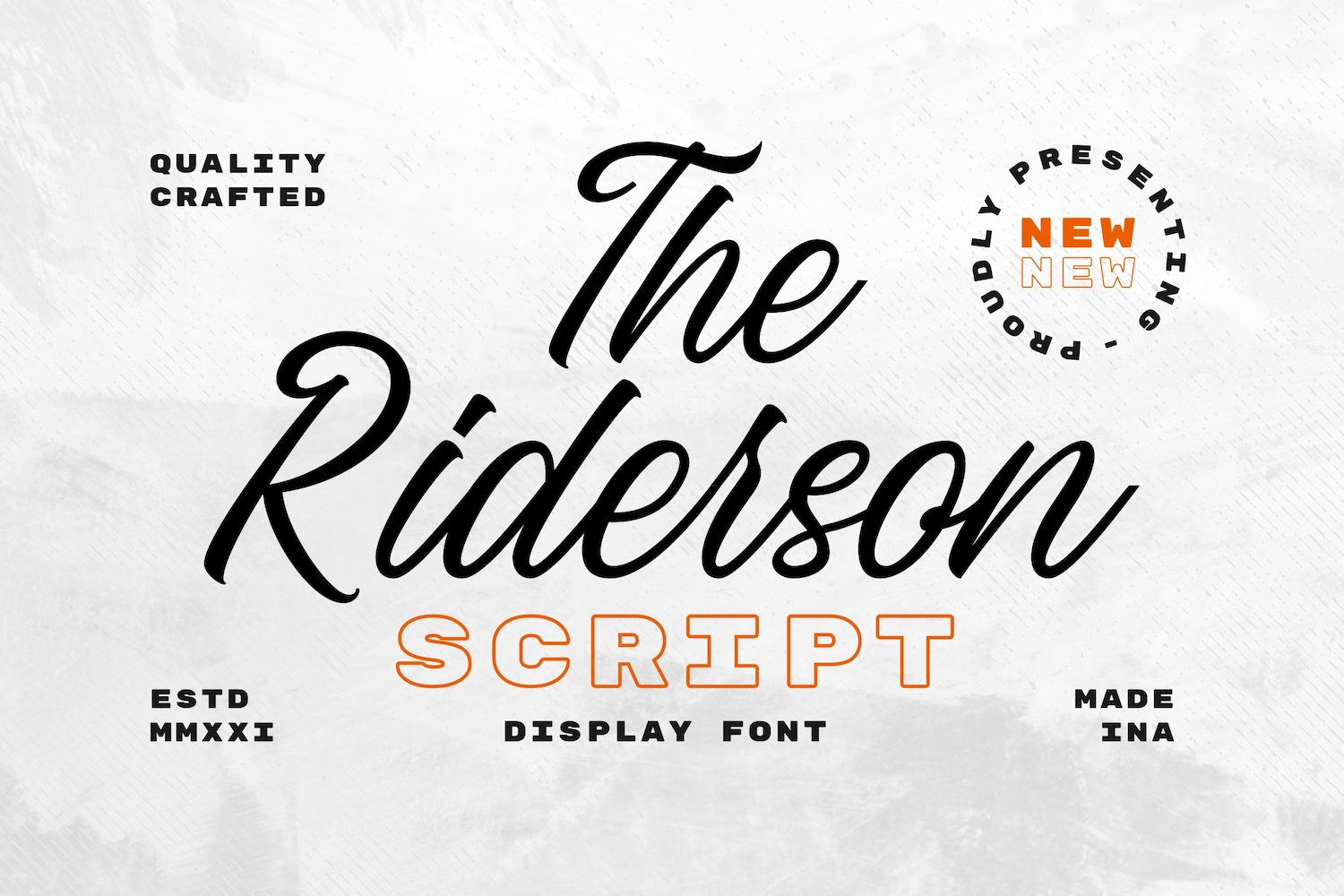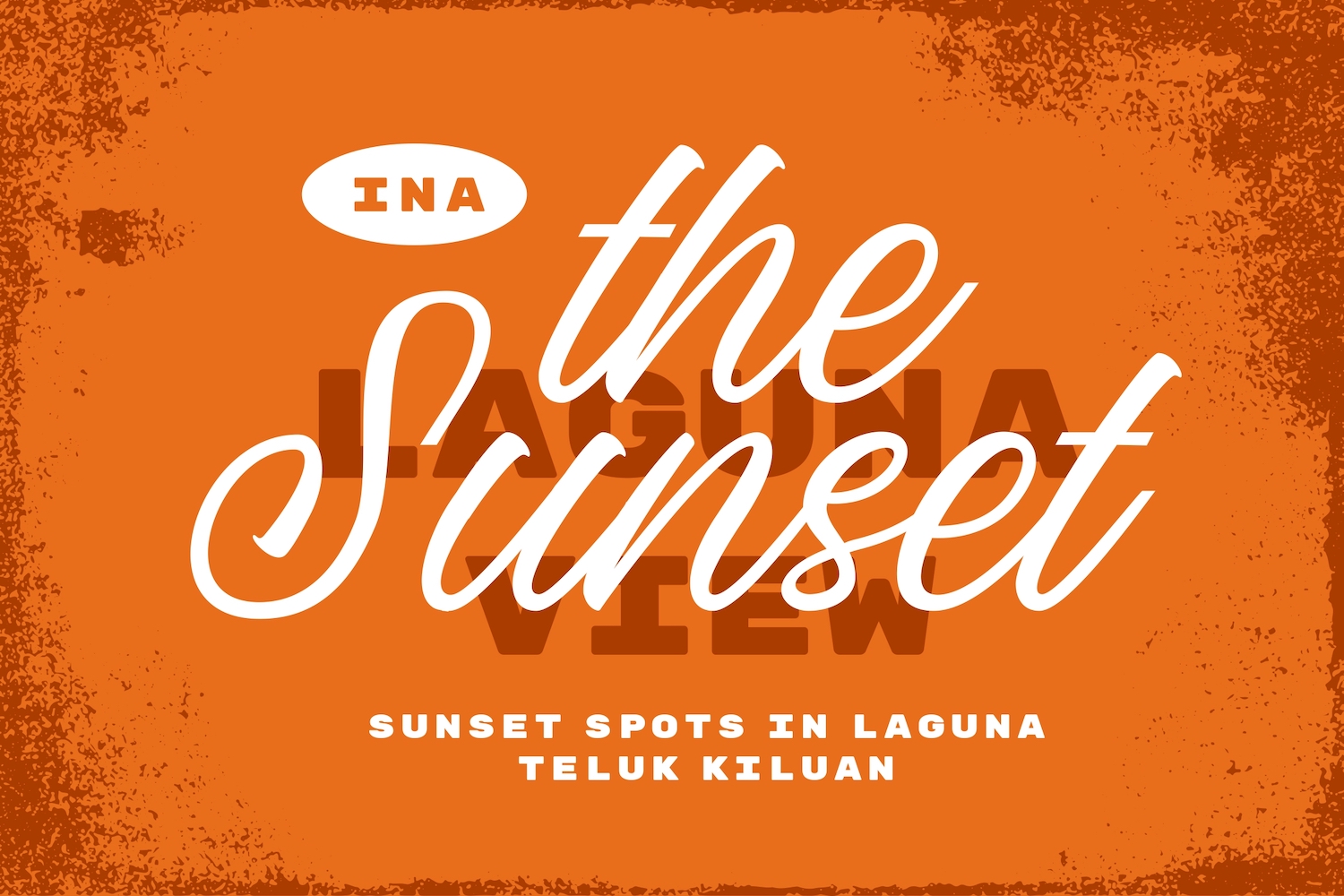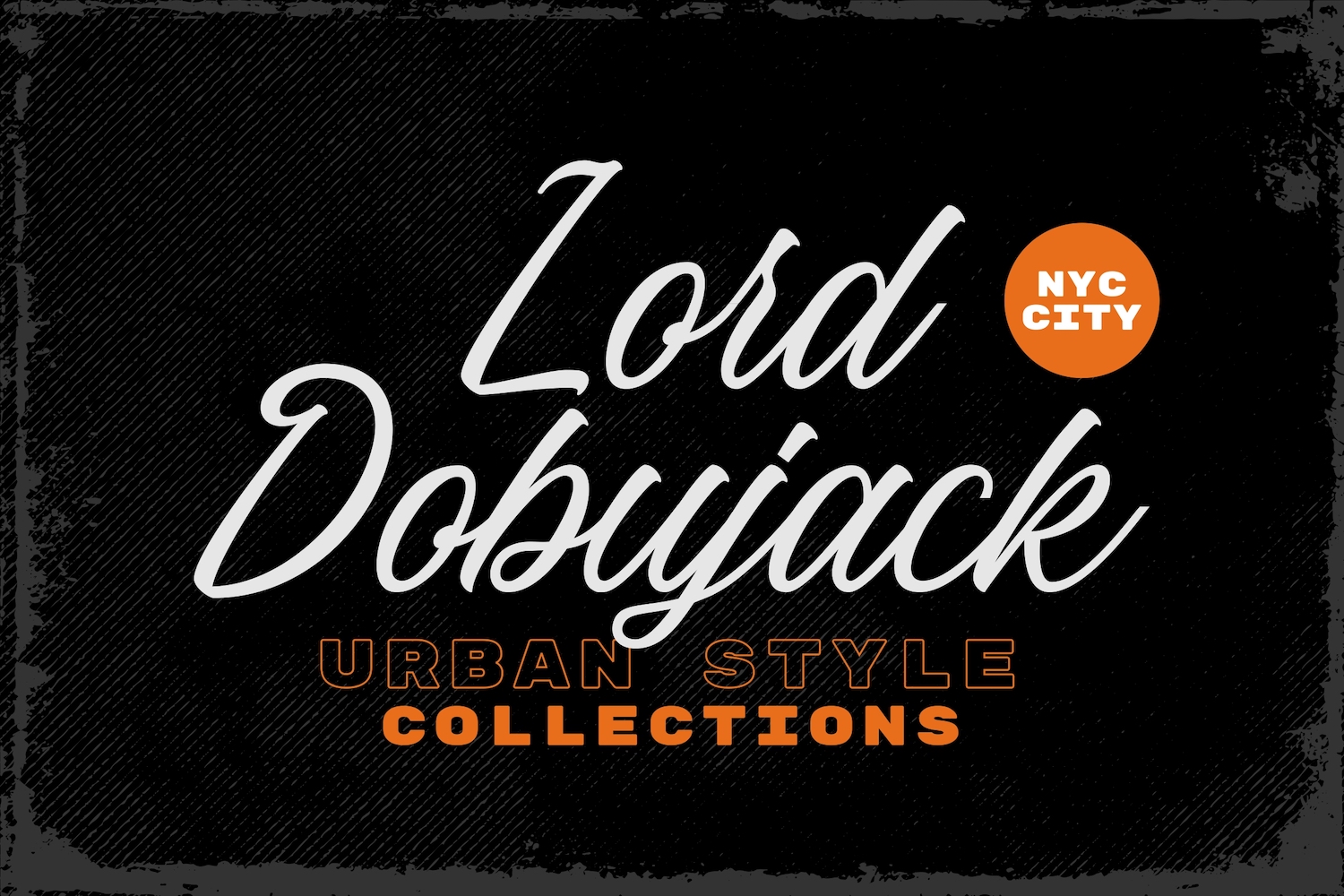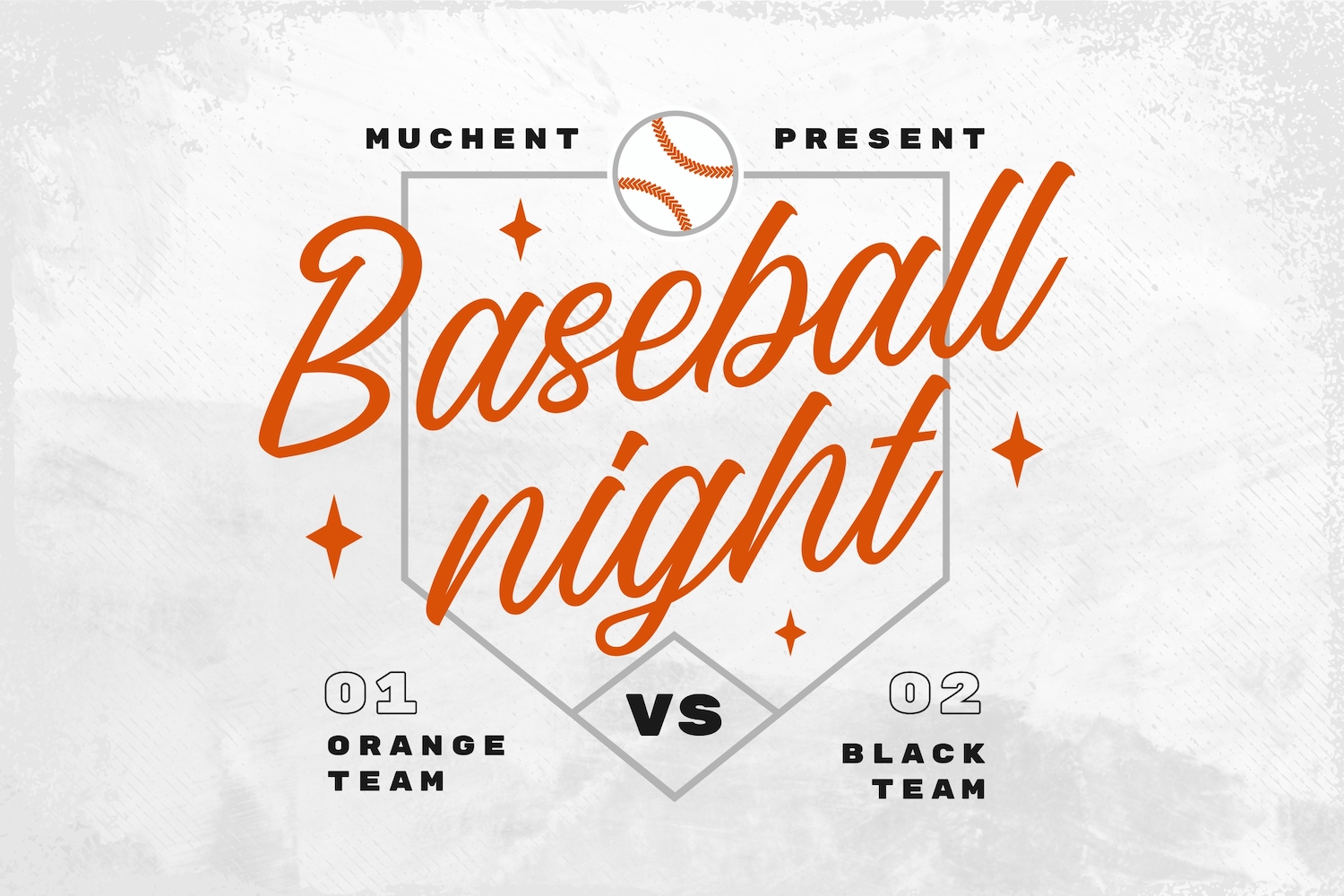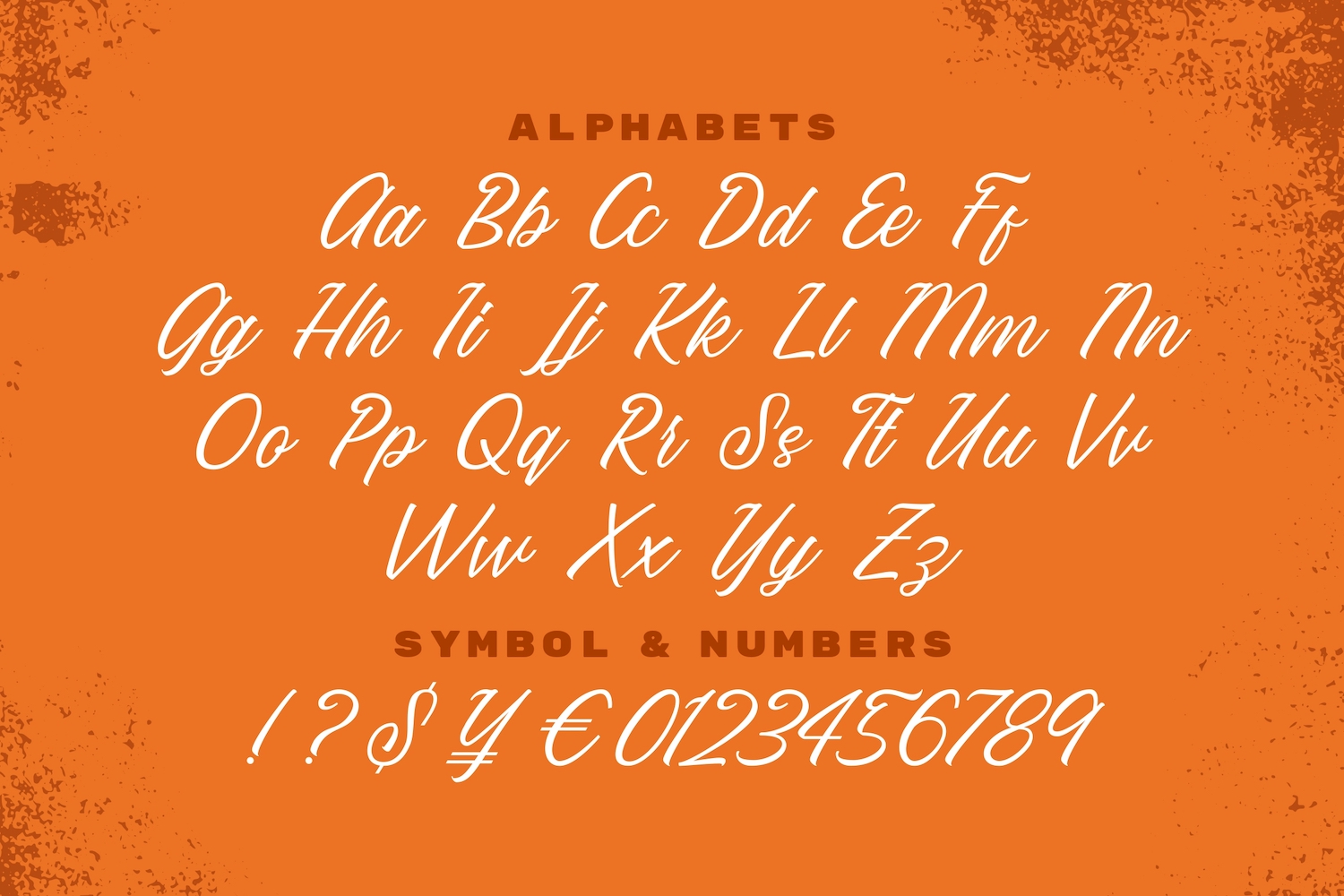
Riderson Script is a dynamic and energetic script font that effortlessly blends elegance with a touch of sportiness. Its fluid strokes and natural curves create a bold handwritten style that makes it perfect for branding, packaging, logos, and apparel. The font maintains a casual yet refined aesthetic, allowing it to convey both personality and professionalism.
Crafted with high attention to detail, Riderson Script includes uppercase, lowercase, numbers, and symbols, making it versatile for a wide range of uses. Whether you’re designing for urban themes, baseball events, or retro signage, this font stands out with its expressive and impactful character.